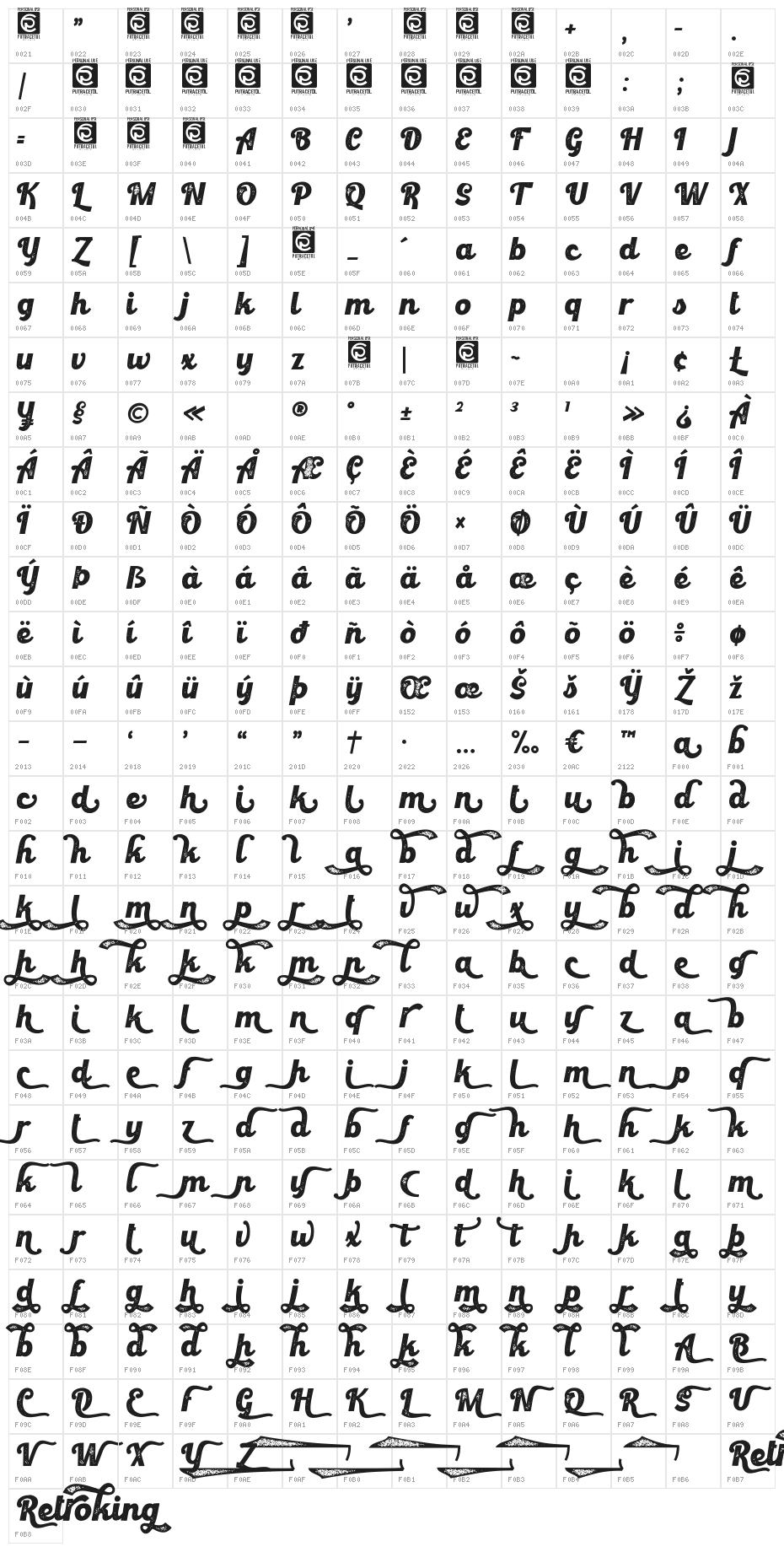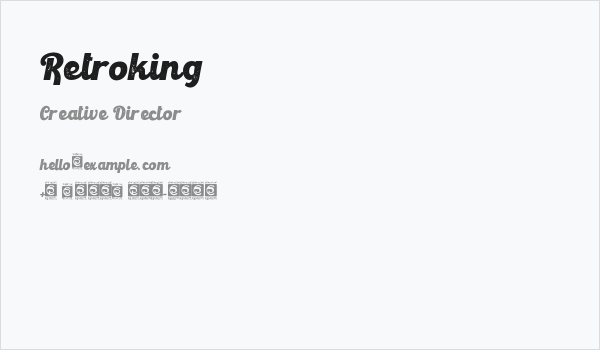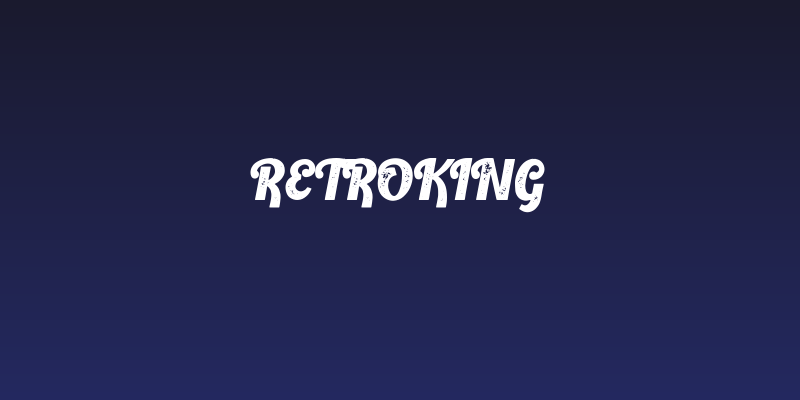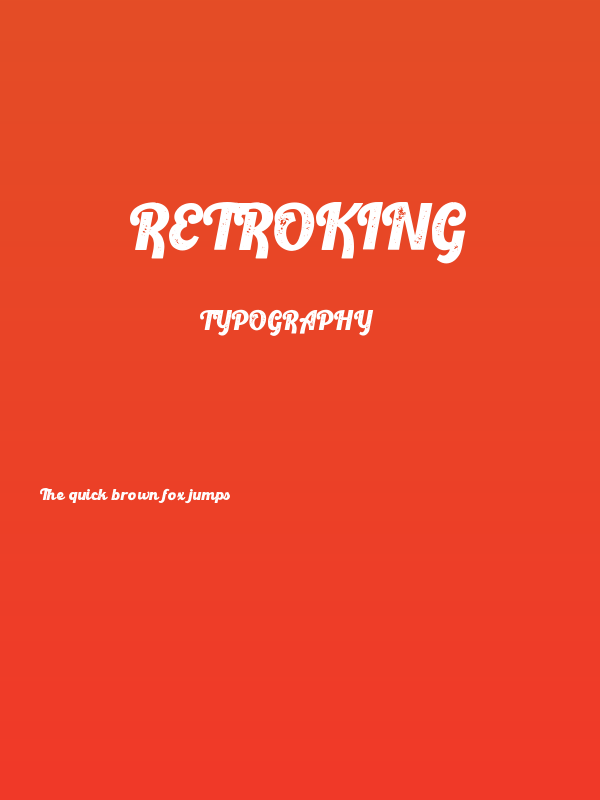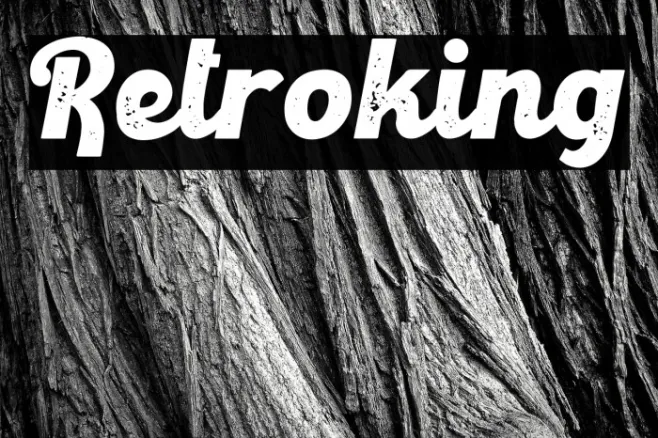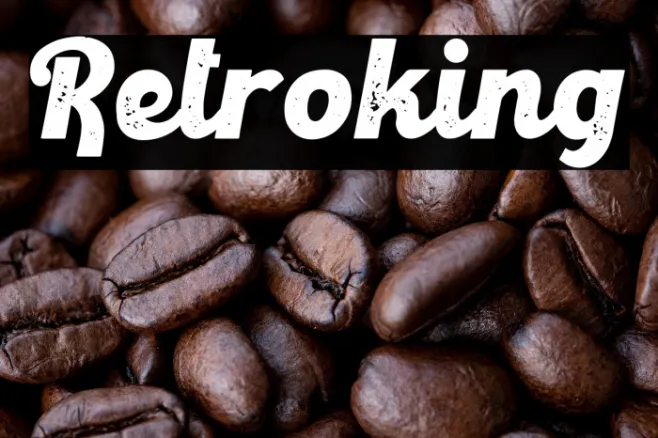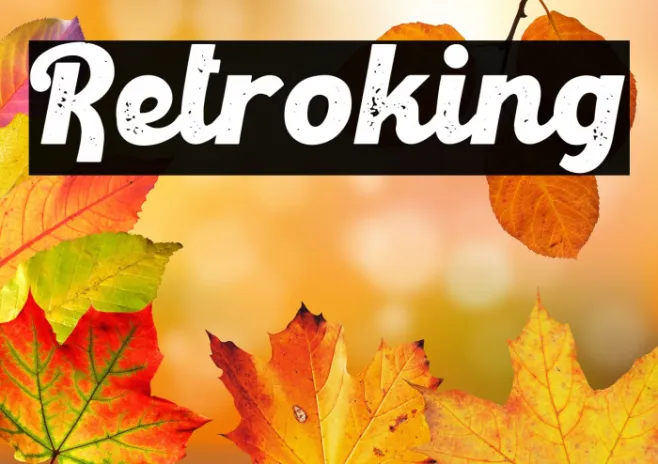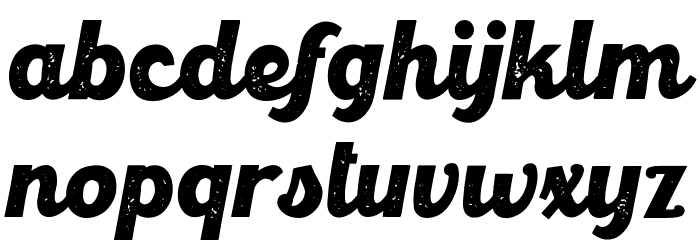
Retroking Font
Retroking Description
This font features a bold, vintage style with a distressed texture that gives it a worn, retro appearance. The uppercase letters are robust and slightly slanted, adding a dynamic feel. The lowercase letters maintain the same boldness, with a consistent slant that complements the uppercase set. The numerals are clear and bold, matching the overall aesthetic. Special characters are included, maintaining the same distressed and bold style. This font is ideal for projects that aim to evoke a sense of nostalgia or a retro vibe, such as vintage posters, logos, or branding materials.
| Proposed Projects | Ideal for vintage posters, retro-themed branding, and nostalgic designs. |